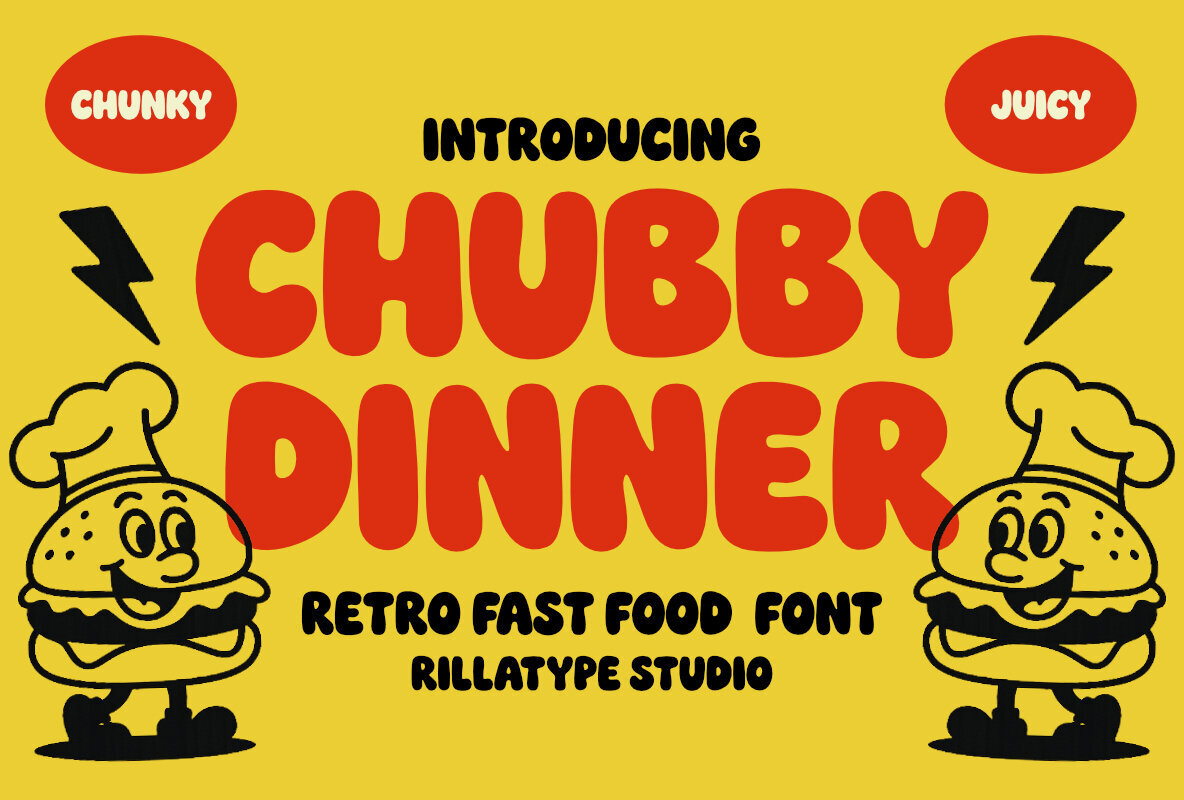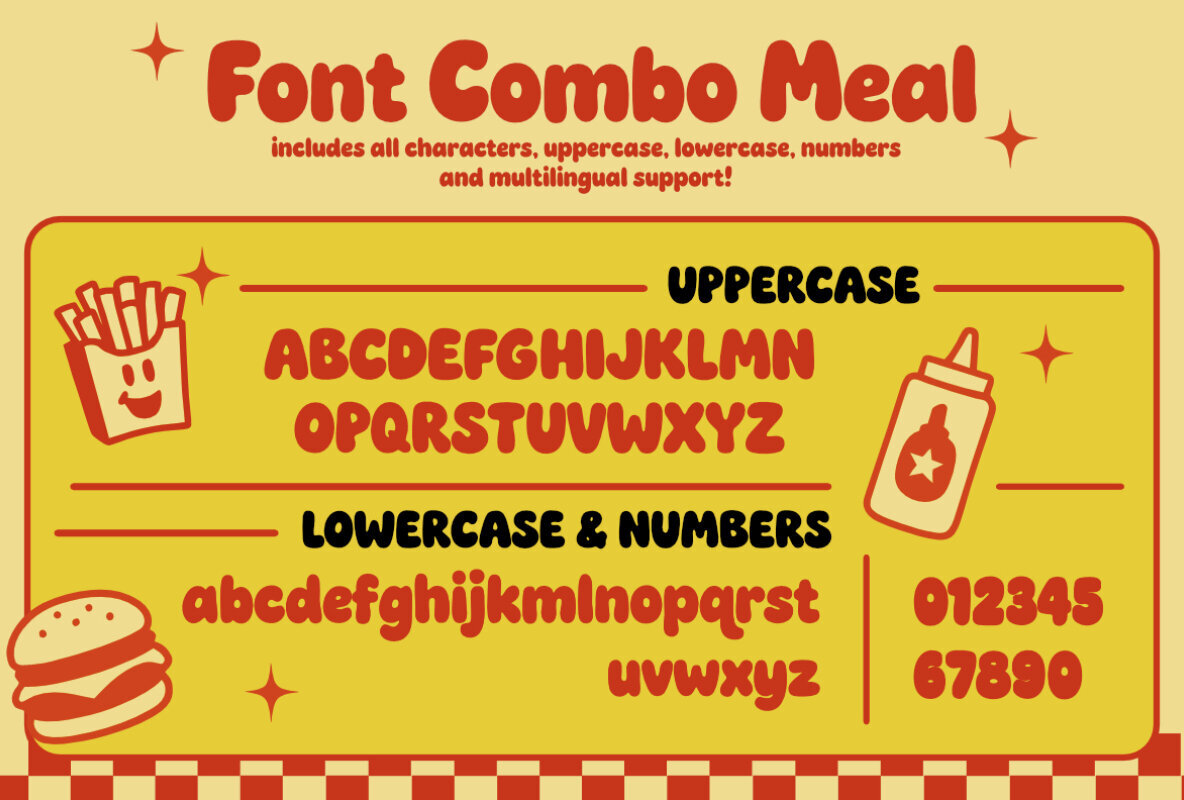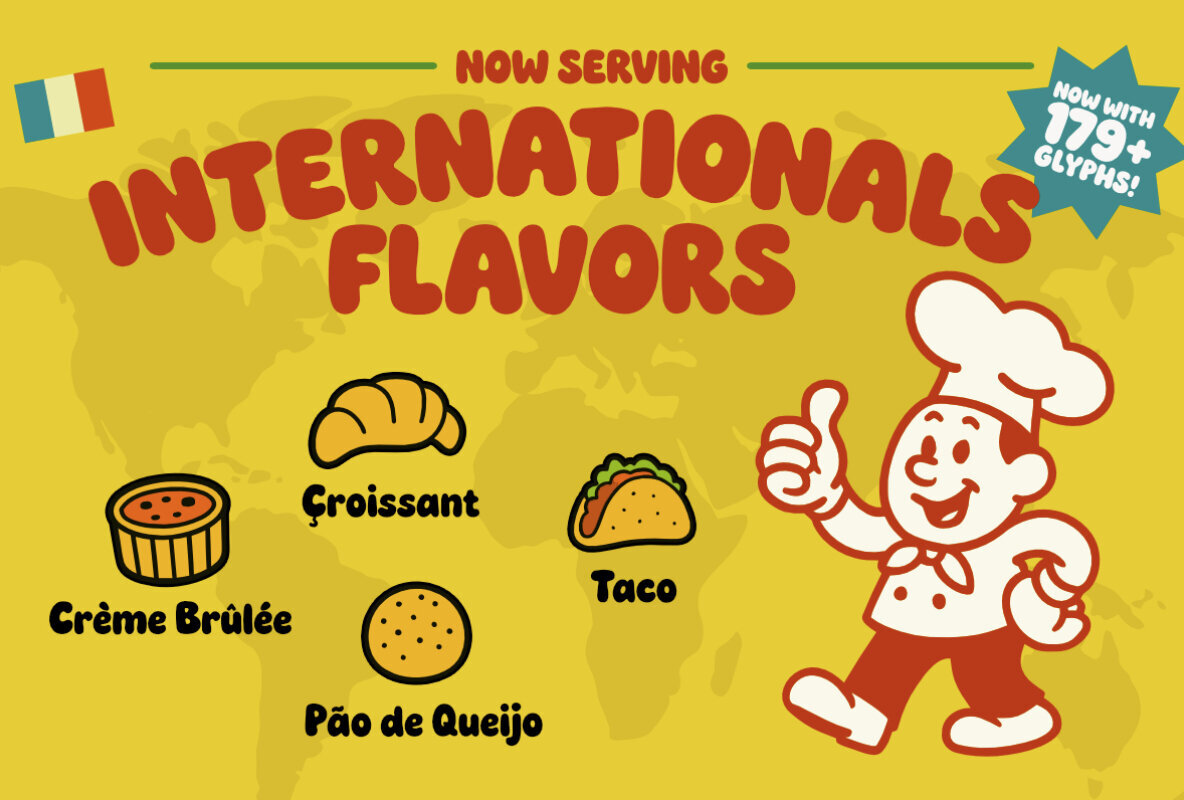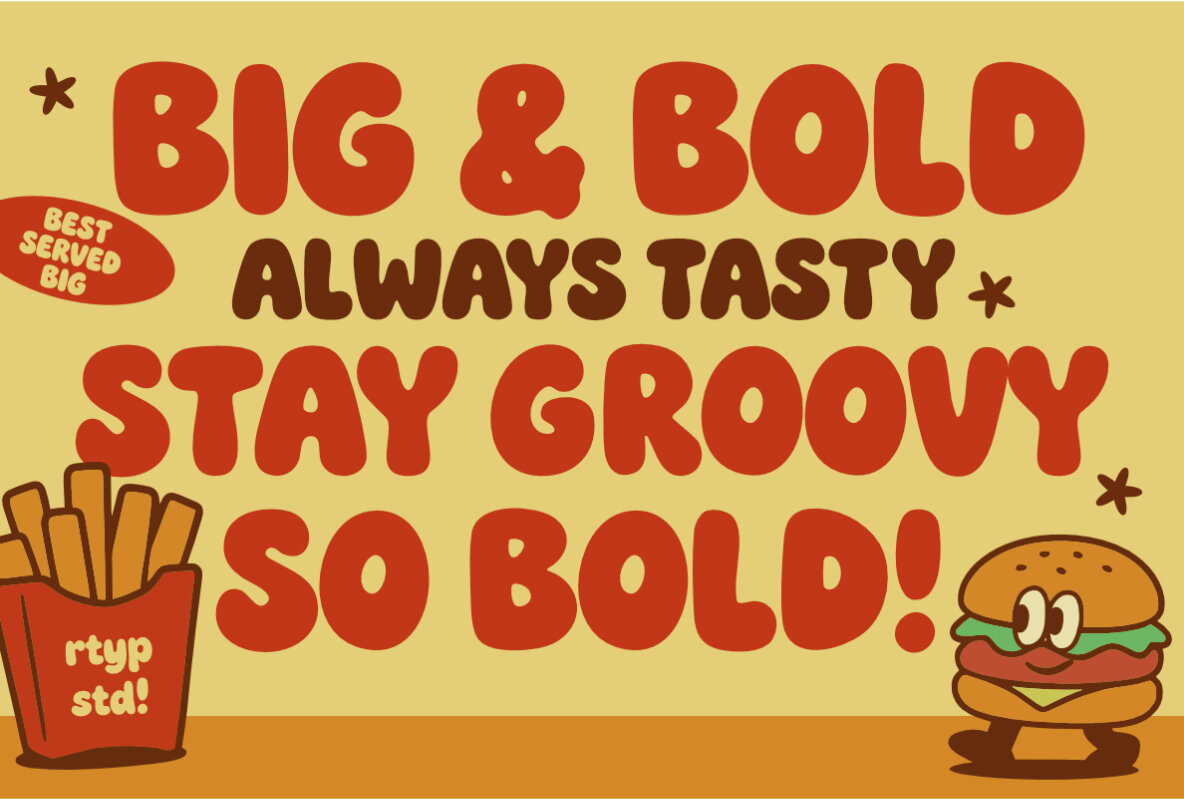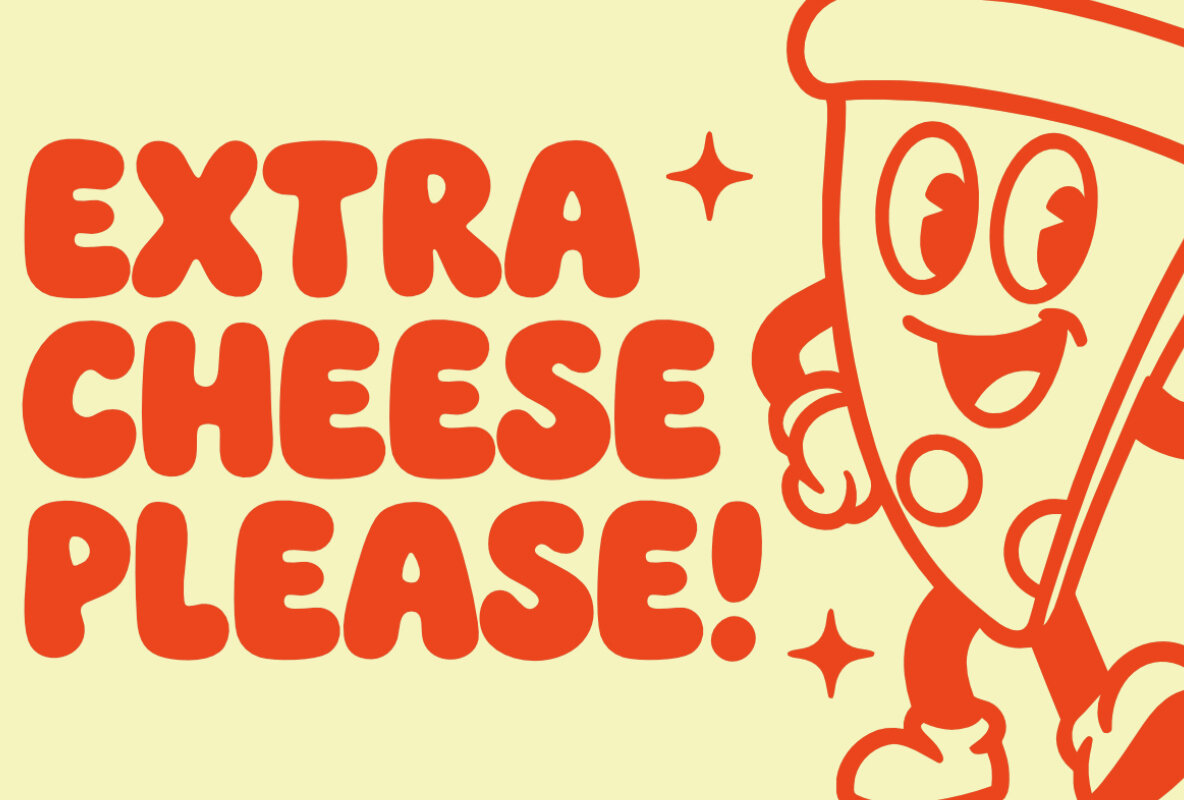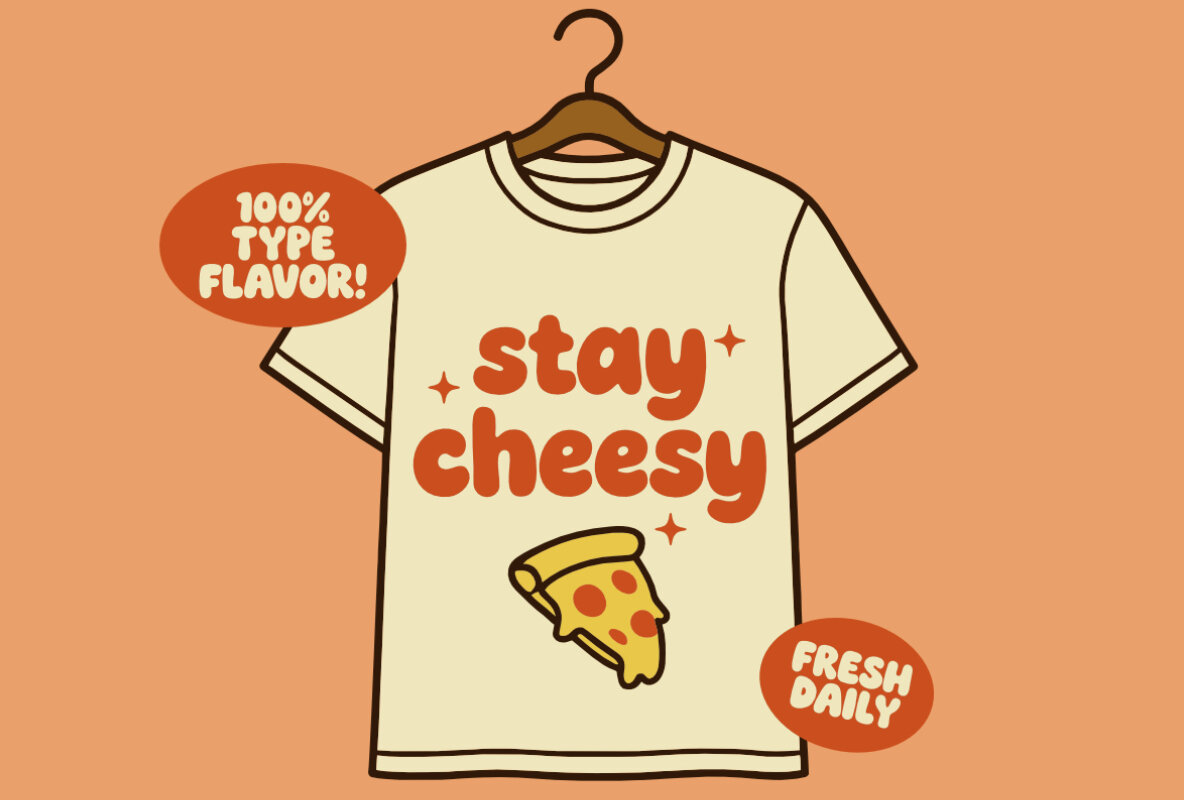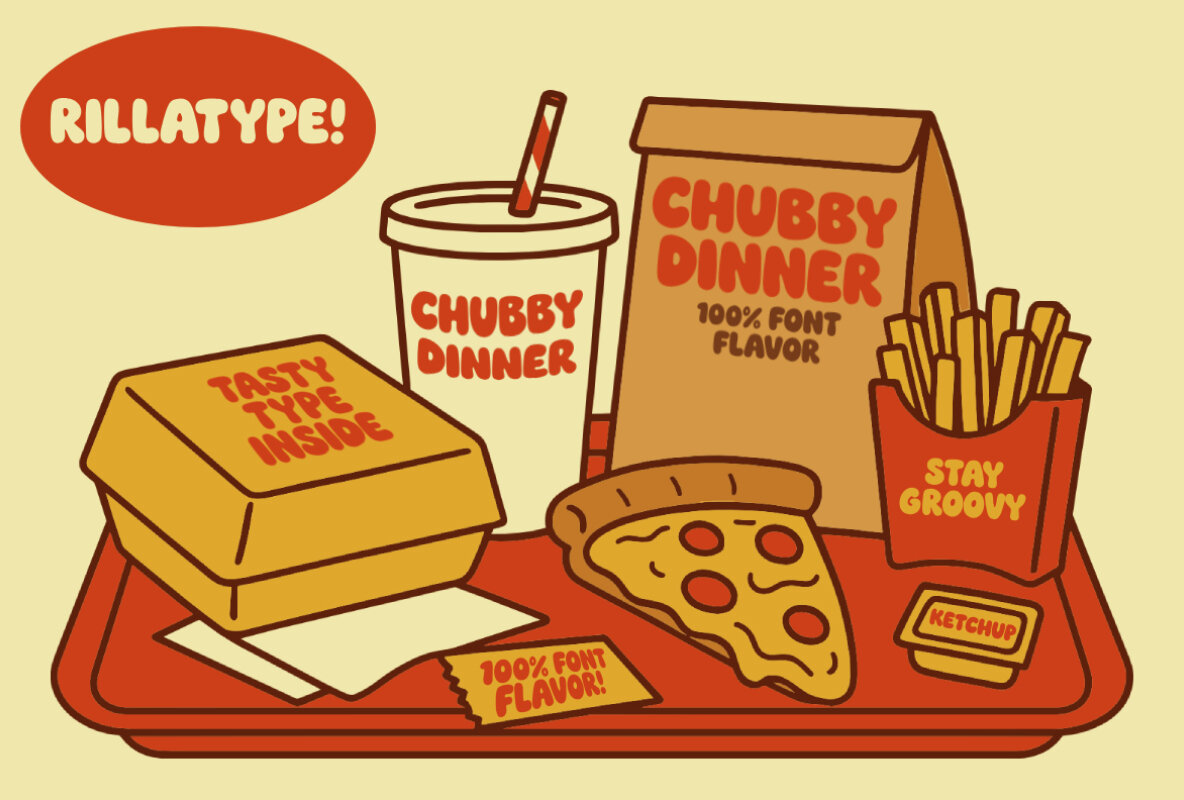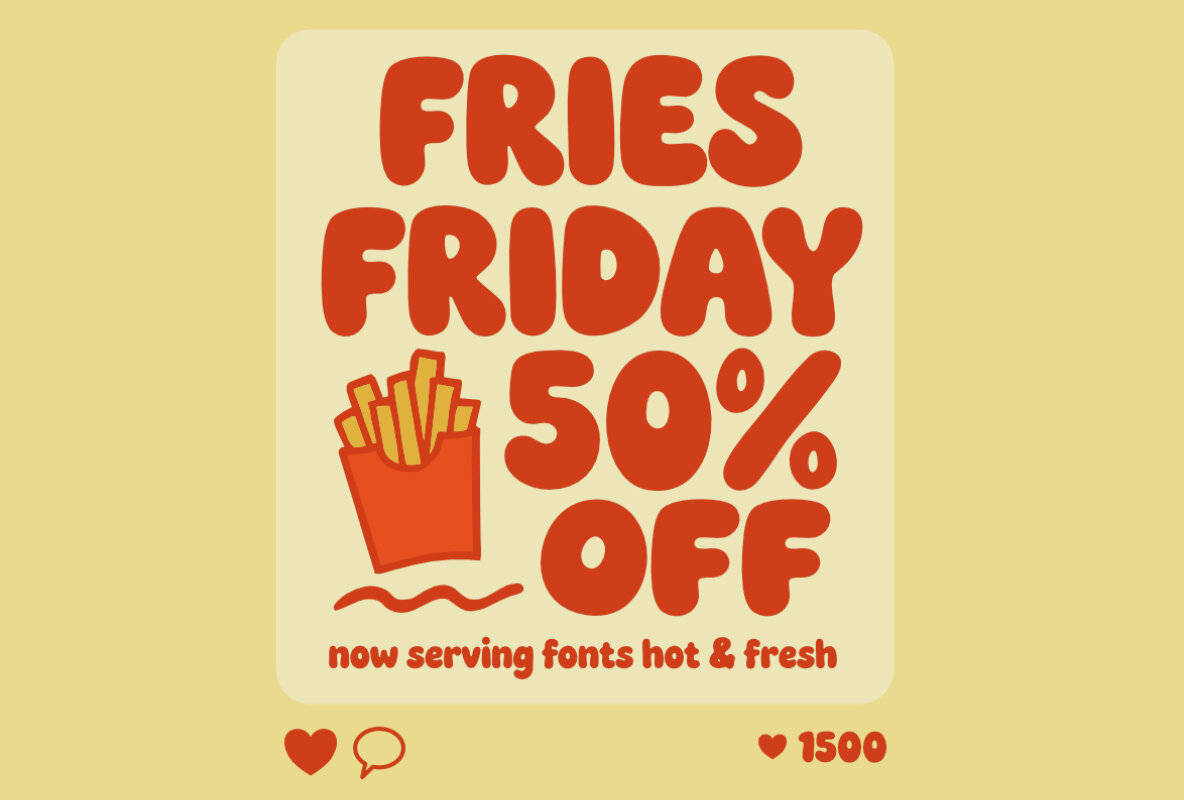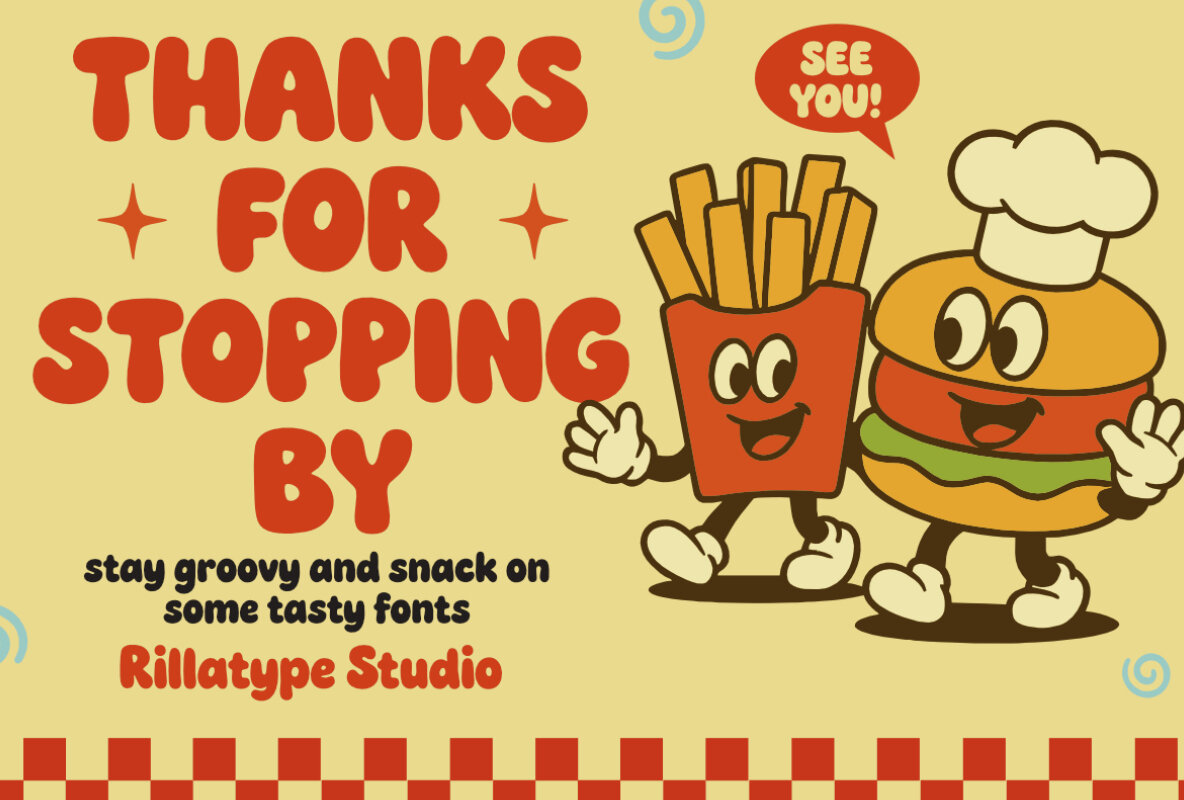
Chubby Dinner Font
RT Chubby Dinner Regular
Chubby Diner is a bold and bubbly display font inspired by retro fast food signage and vintage diner menus. With thick rounded strokes, friendly curves, and a nostalgic tone, this typeface brings playful energy to any project. Perfect for logos, packaging, T-shirts, posters, and social media graphics, Chubby Diner delivers tasty vibes with every letter. Whether you're crafting a 70s-style brand or a fun food-related campaign, this font will serve up bold personality and charm—extra cheese included!